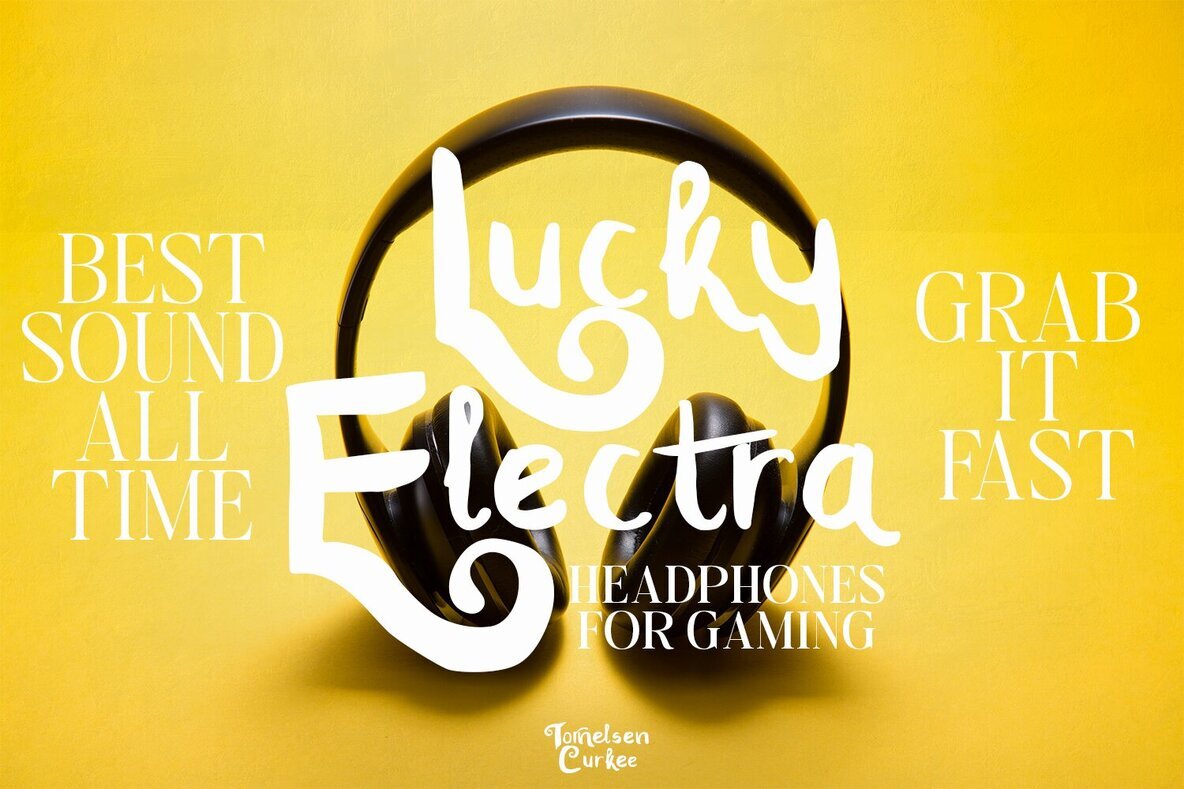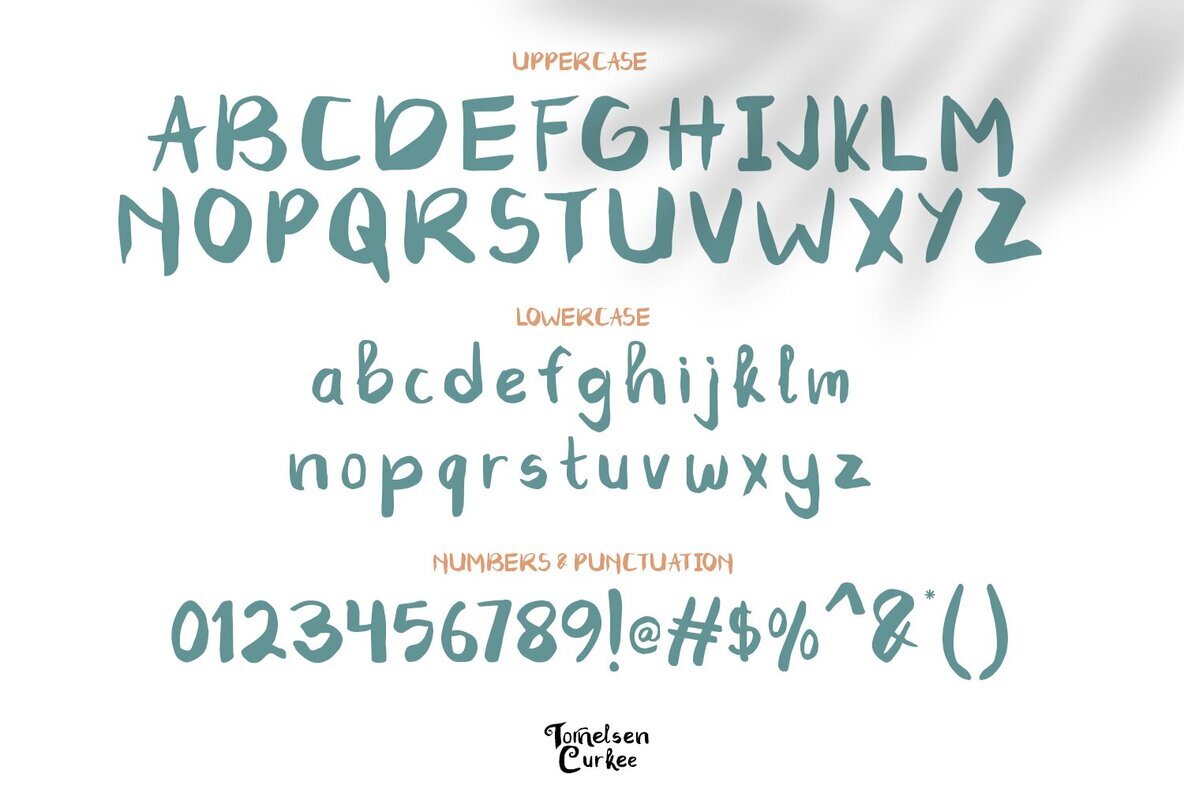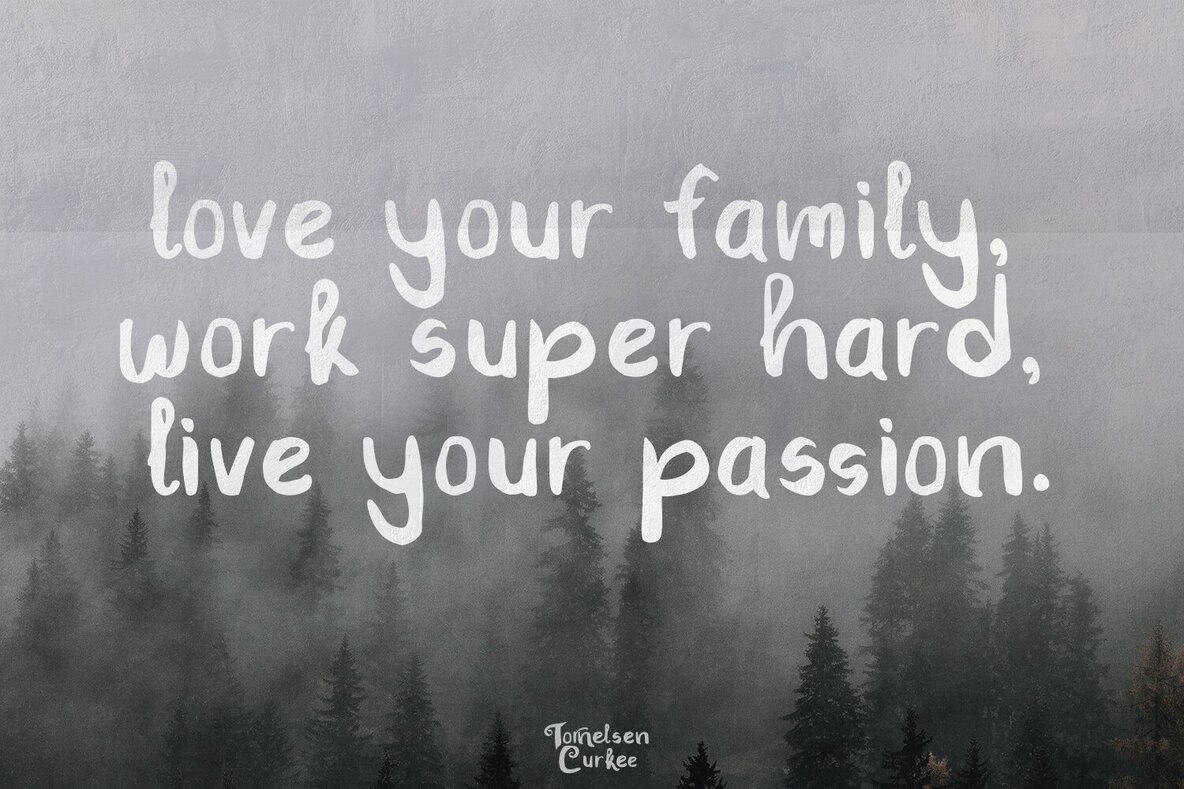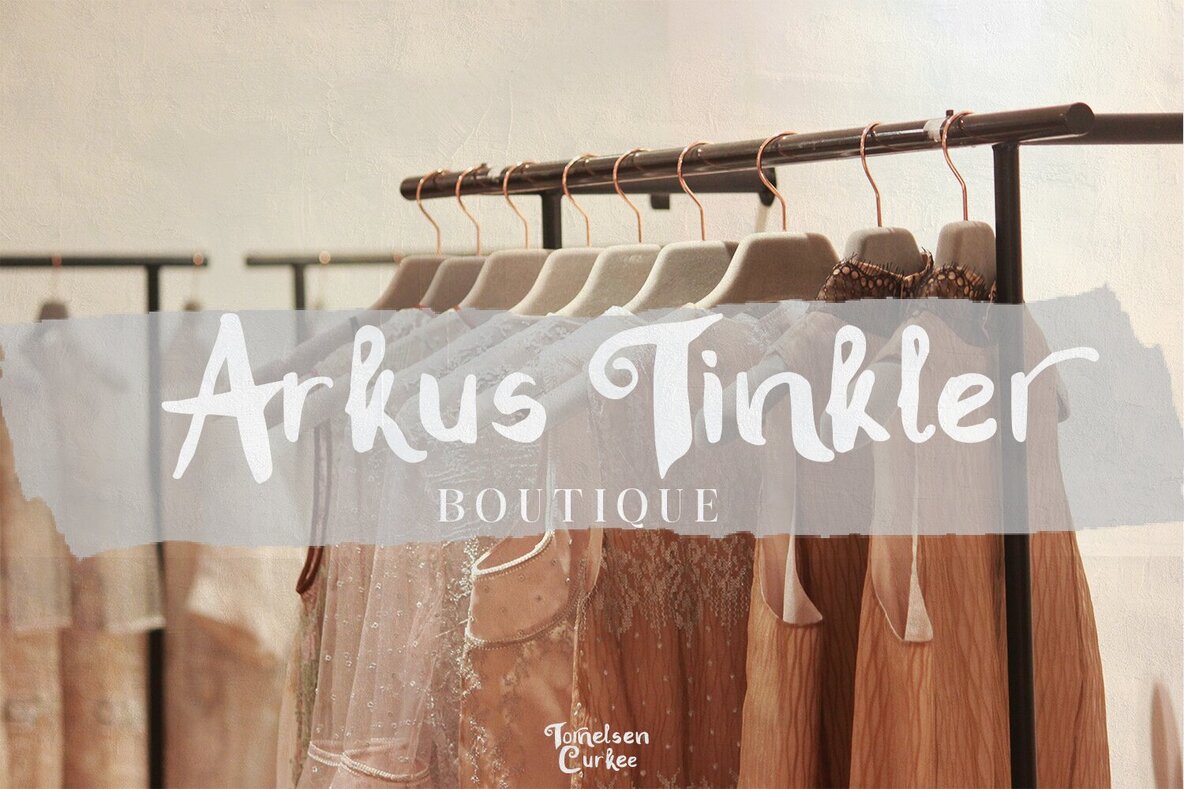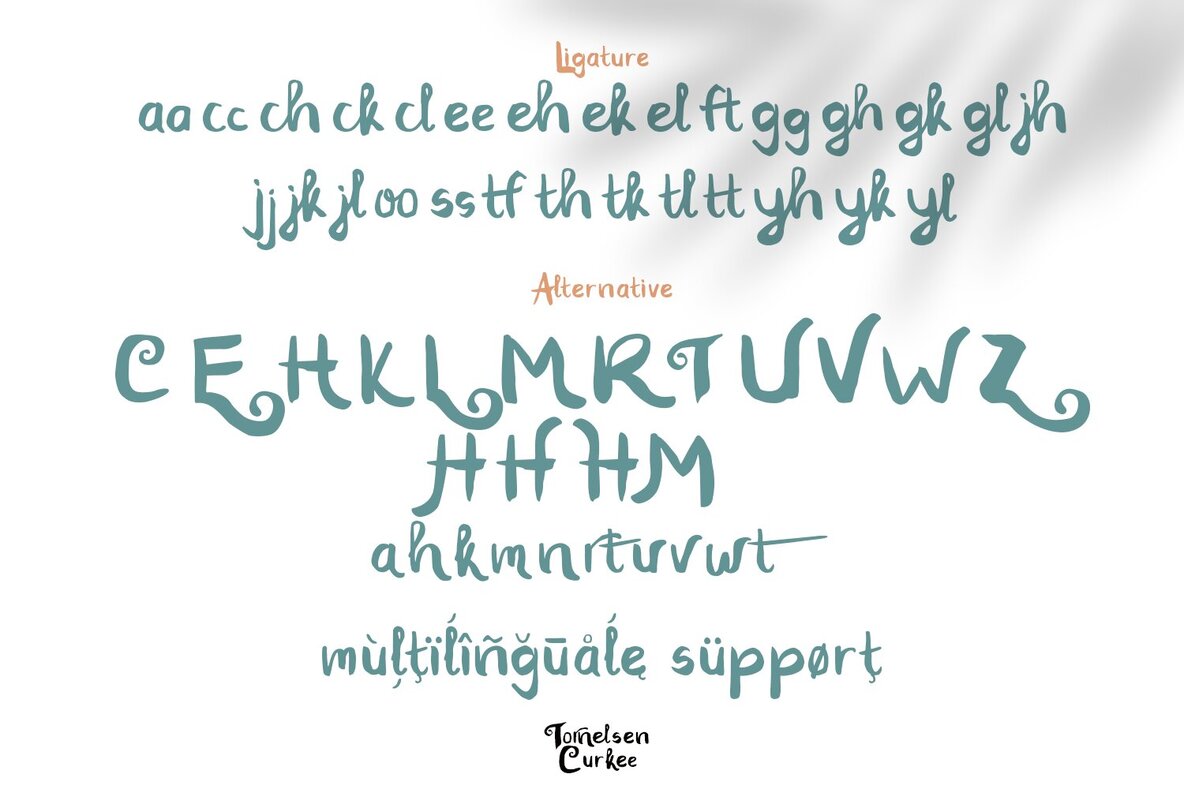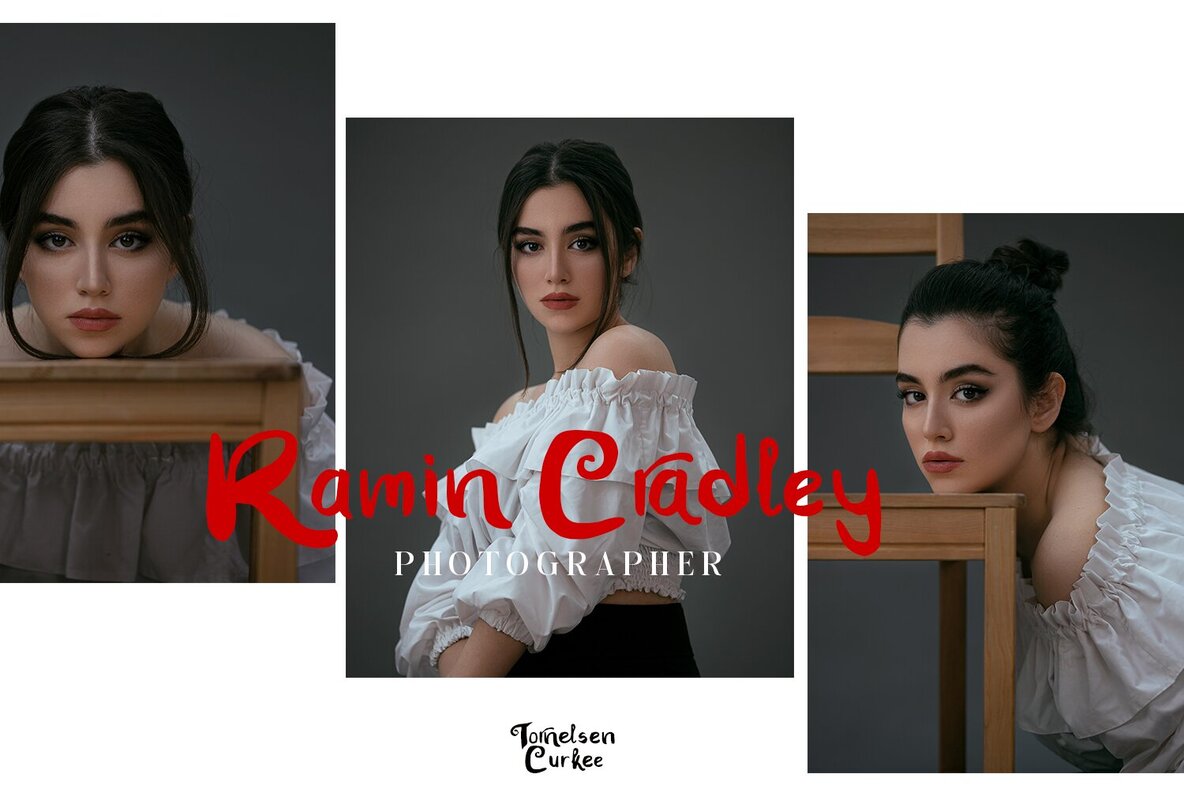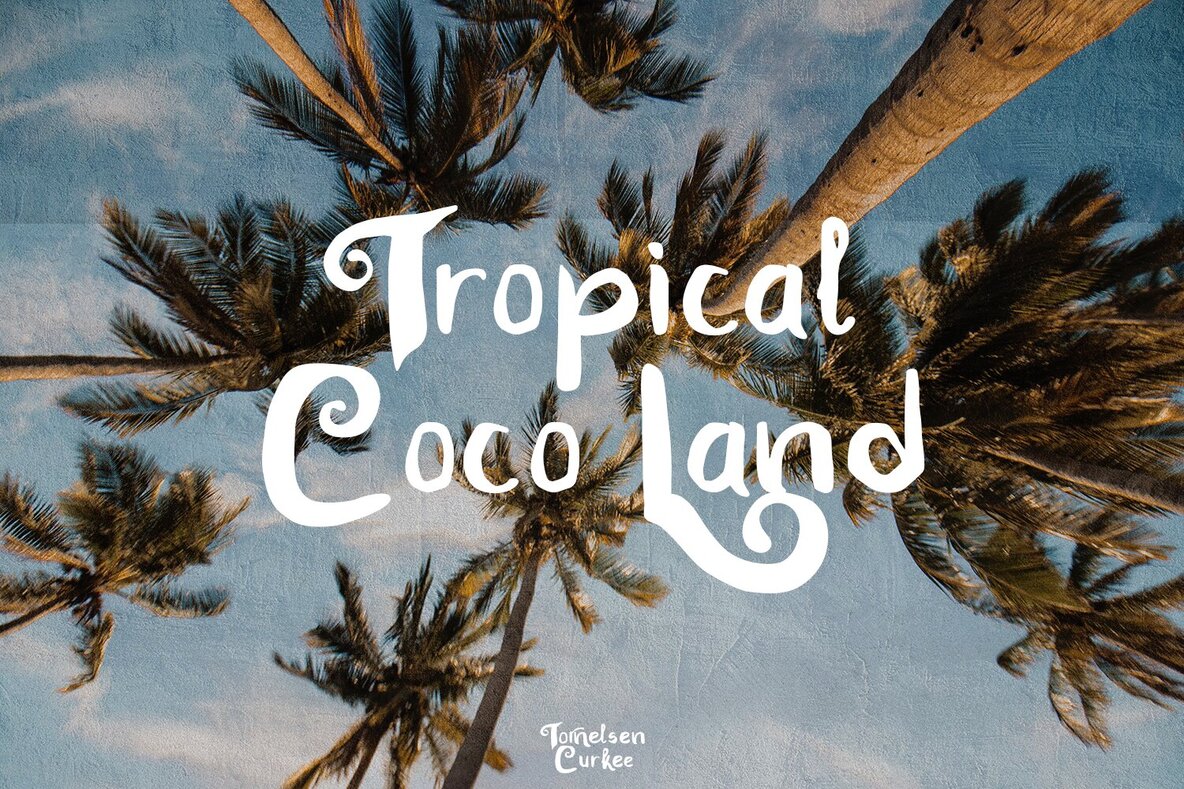
Tornelsen Curkee Font
Tornelsen Curkee offers a dynamic and natural handwritten style, making it an ideal choice for a wide range of design projects. Its realistic brush strokes bring a personal and creative touch to your work.Tornelsen Curkee: A Realistic Brush Script